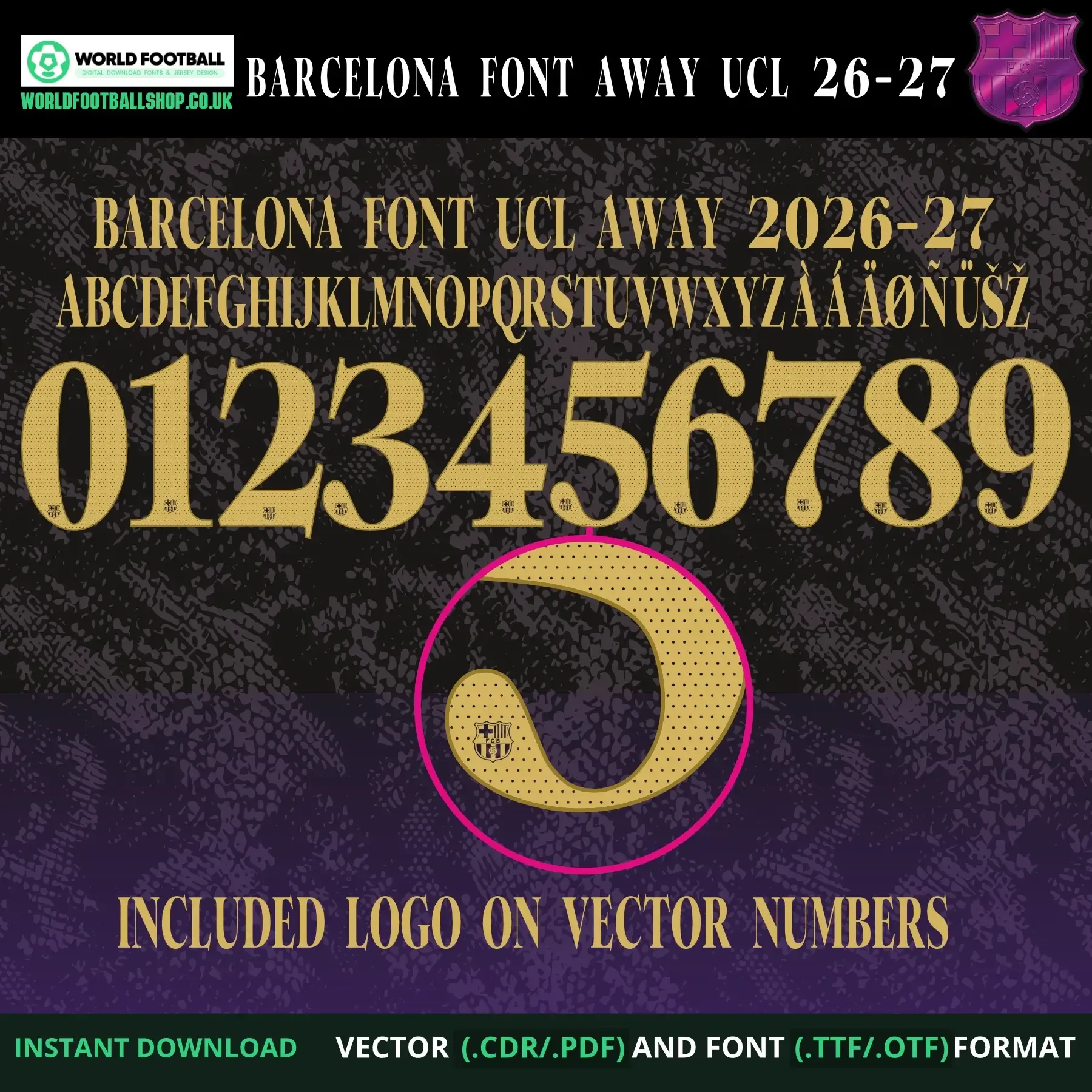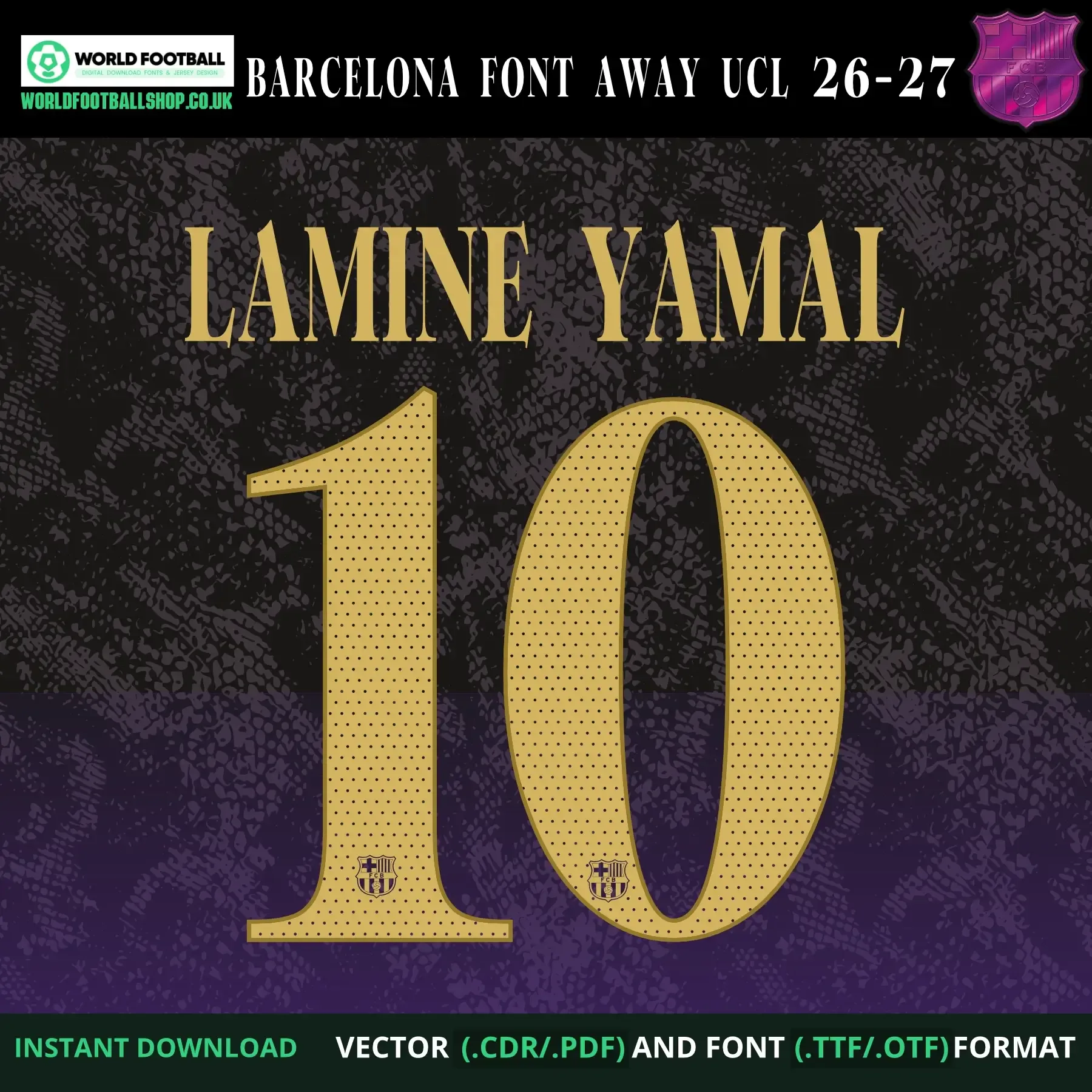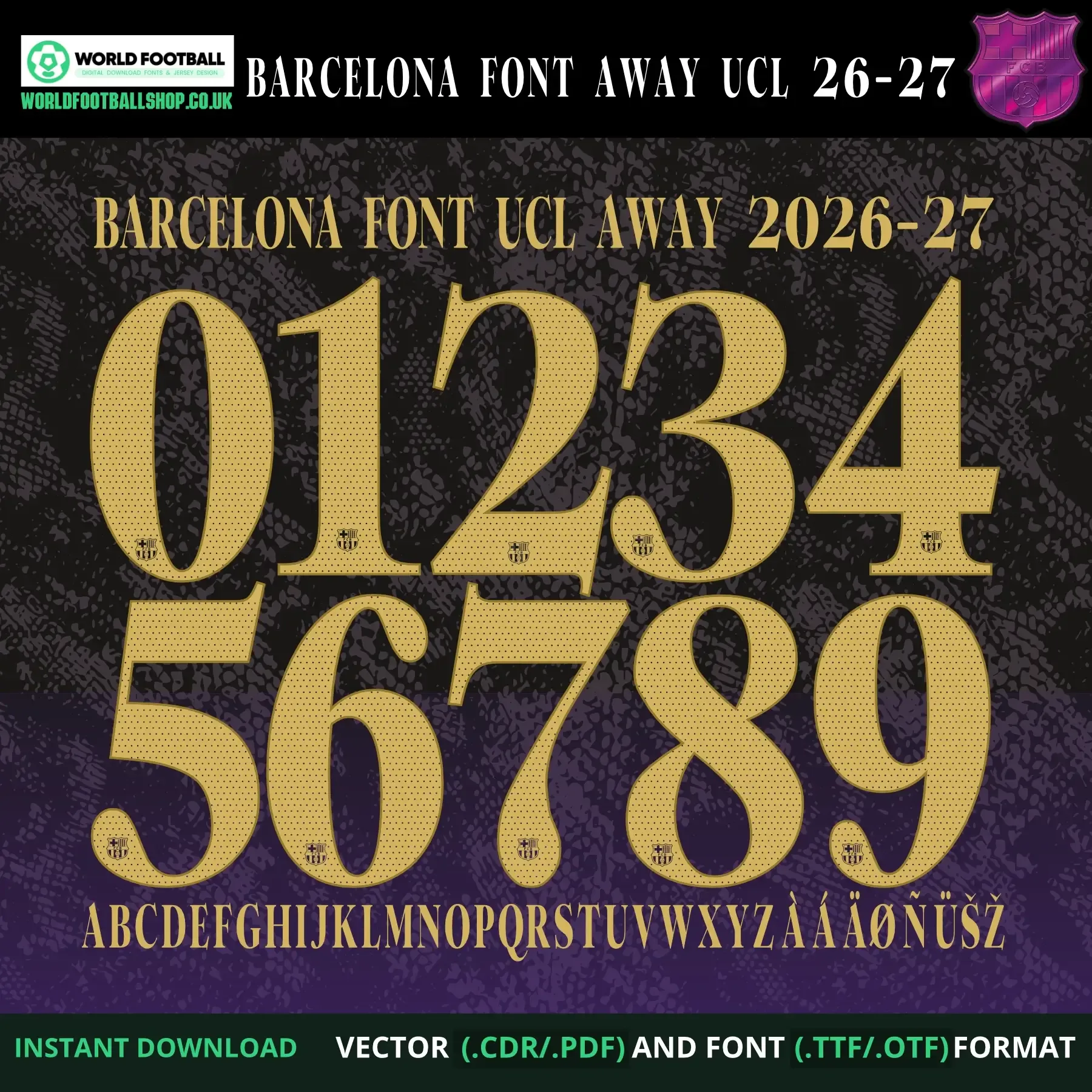
Barcelona Font Away UCL 2026-27, inspired by the style of Barcelona's away kit lettering for the Champions League. Includes TTF and OTF font files, a full vector pack (AI, CDR, EPS, PDF, SVG) with the complete A-Z alphabet and numbers 0-9, plus accented characters (Γ, Γ, Γ, Ε , Ε½). Instant digital download β no physical product is shipped.
Barcelona Font Away UCL 2026-27 - Jersey Typography
This football font set takes inspiration from the elegant serif lettering seen on Barcelona's away kit for the 2026-27 Champions League season. Each character combines a refined gold serif form with a fine dotted, perforated-style texture, set against a moody black-to-purple background with a subtle mottled pattern a striking, premium look distinct from a standard block jersey font.
The full character set A-Z alphabet and numbers 0-9, with the Barcelona crest embedded at the base of every letter and number - is supplied as both desktop font files (TTF/OTF) and a complete vector pack (AI, CDR, EPS, PDF, SVG), so it works whether you're setting text quickly in a design app or need clean, editable outlines for cutting and printing. The preview layout shows the full character set alongside a sample name and number combination β LAMINE YAMAL 10 β to demonstrate how the font looks applied.
- Accented characters: Γ, Γ, Γ, Ε , Ε½
- Distinctive gold serif styling with fine perforated texture stands out from typical block jersey fonts
- Crest detail embedded on every character for a cohesive, kit-inspired look